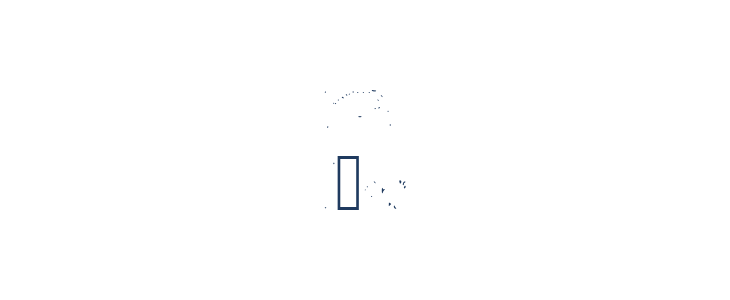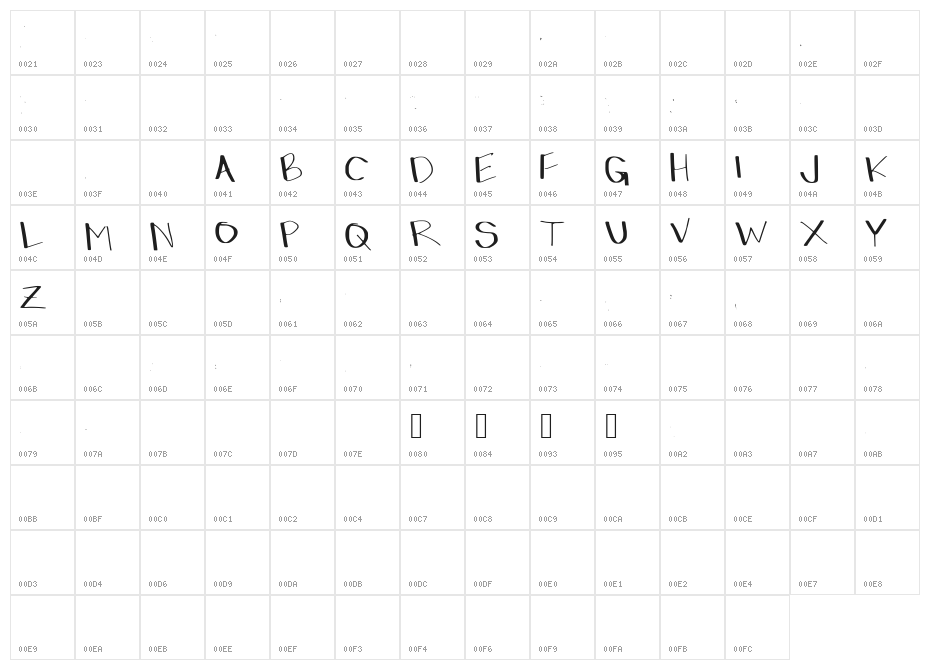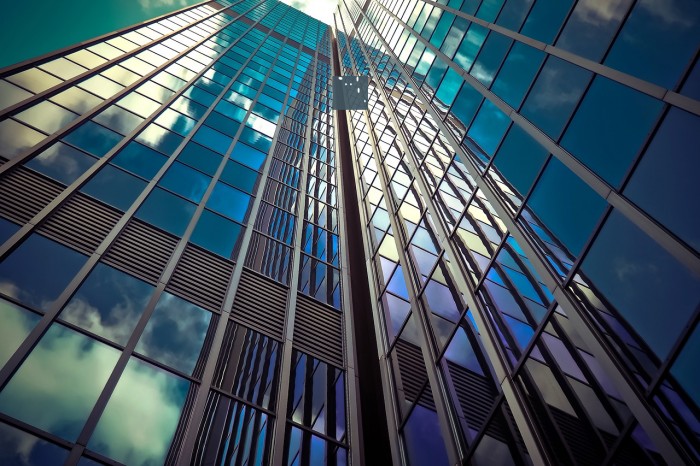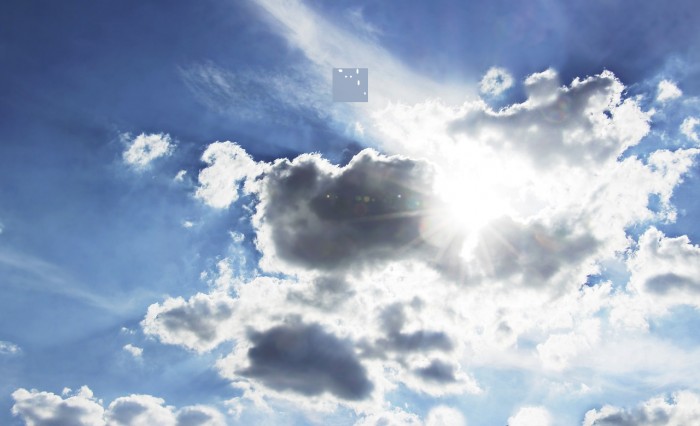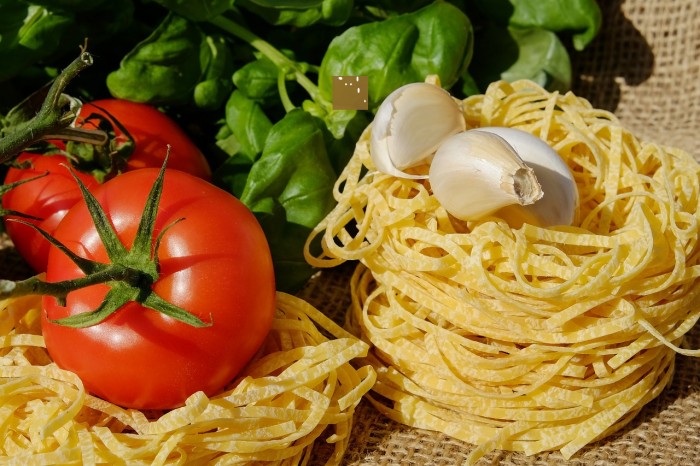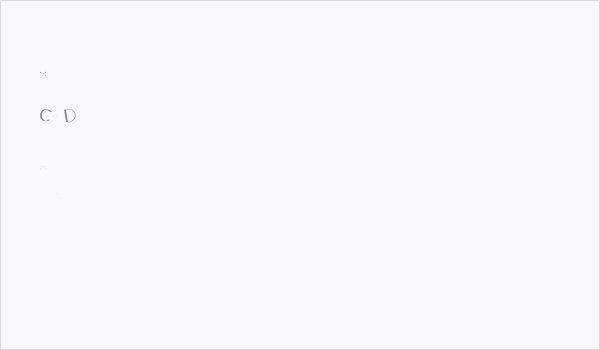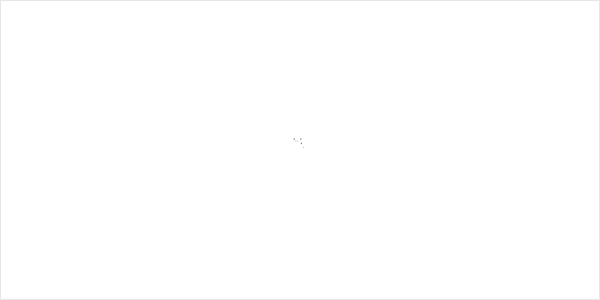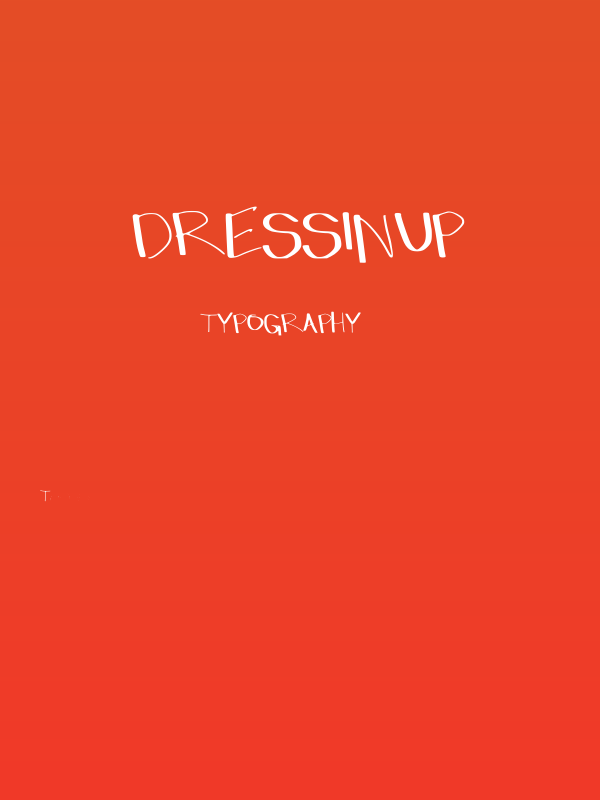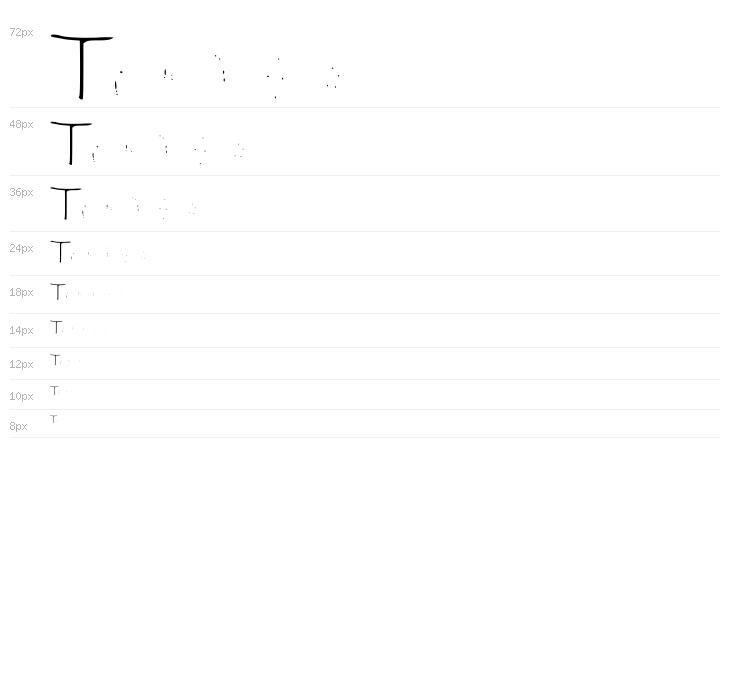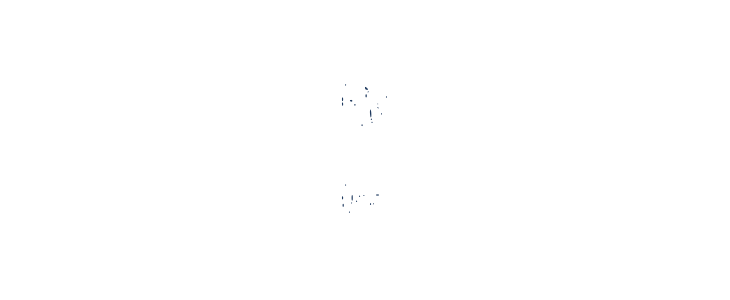
dressinup Font
dressinup Description
This font features an eclectic and playful style with a hand-drawn appearance. The uppercase letters exhibit a whimsical and uneven quality, with varying stroke thicknesses that add a dynamic feel. The characters are slightly tilted and irregular, contributing to a casual and informal look. The font's unique character shapes and quirky details make it stand out, ideal for creative projects that require a touch of personality and fun. The overall design is reminiscent of doodles or artistic sketches, making it suitable for projects that aim to convey creativity and individuality.
| Proposed Projects | Ideal for children's books, creative posters, casual invitations, and artistic branding. |